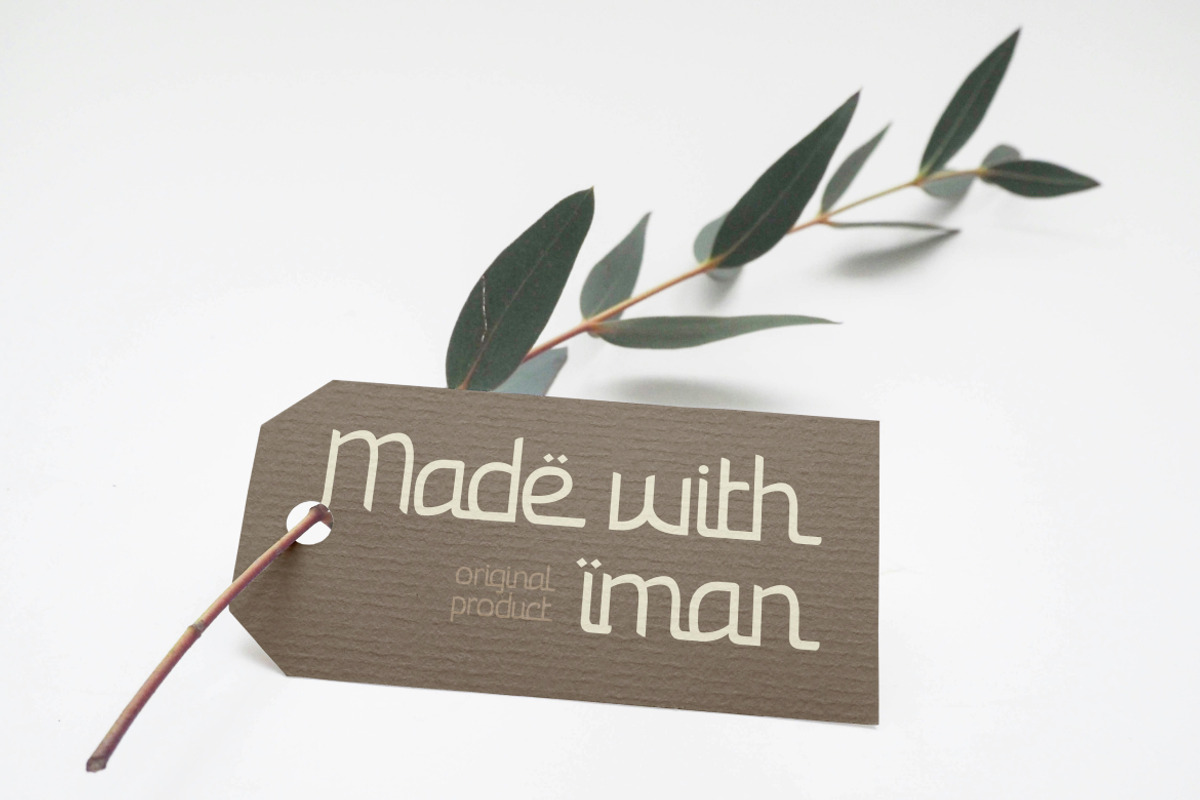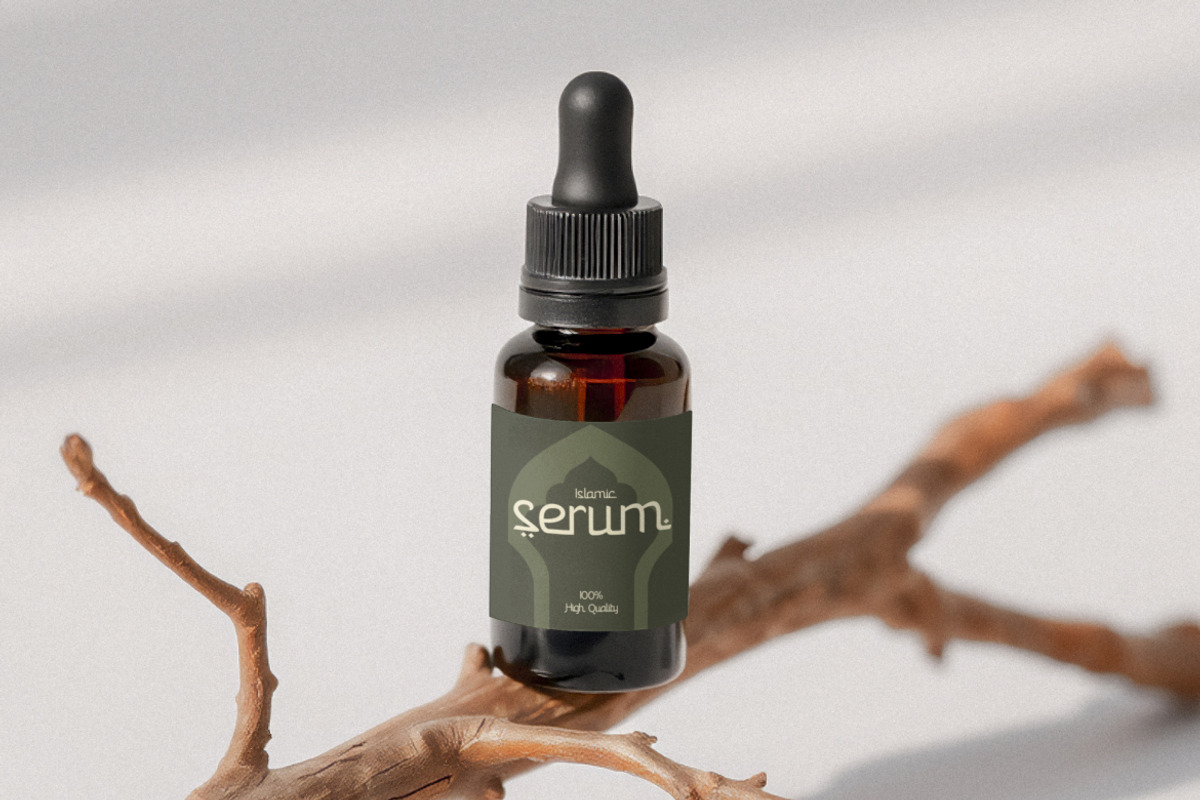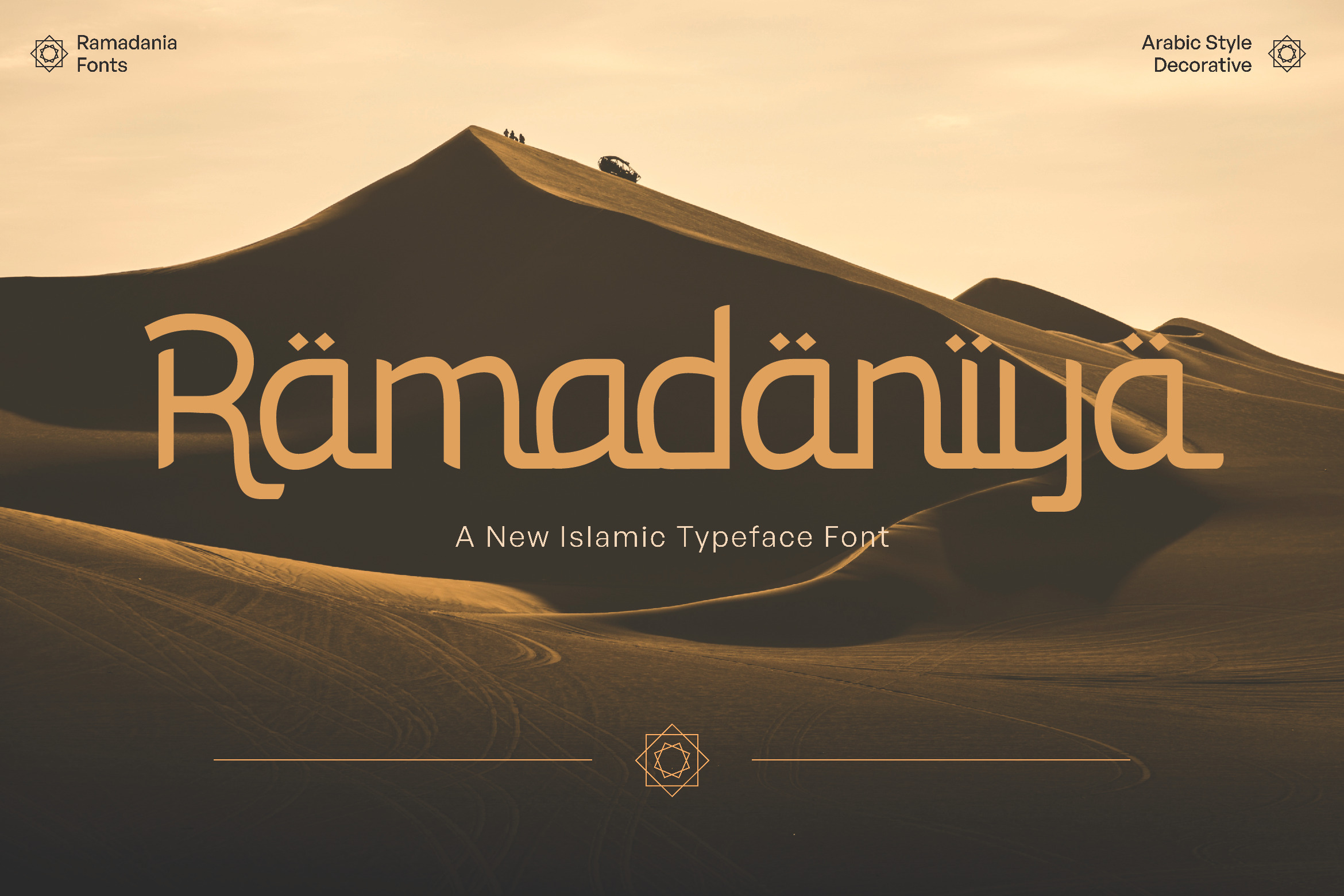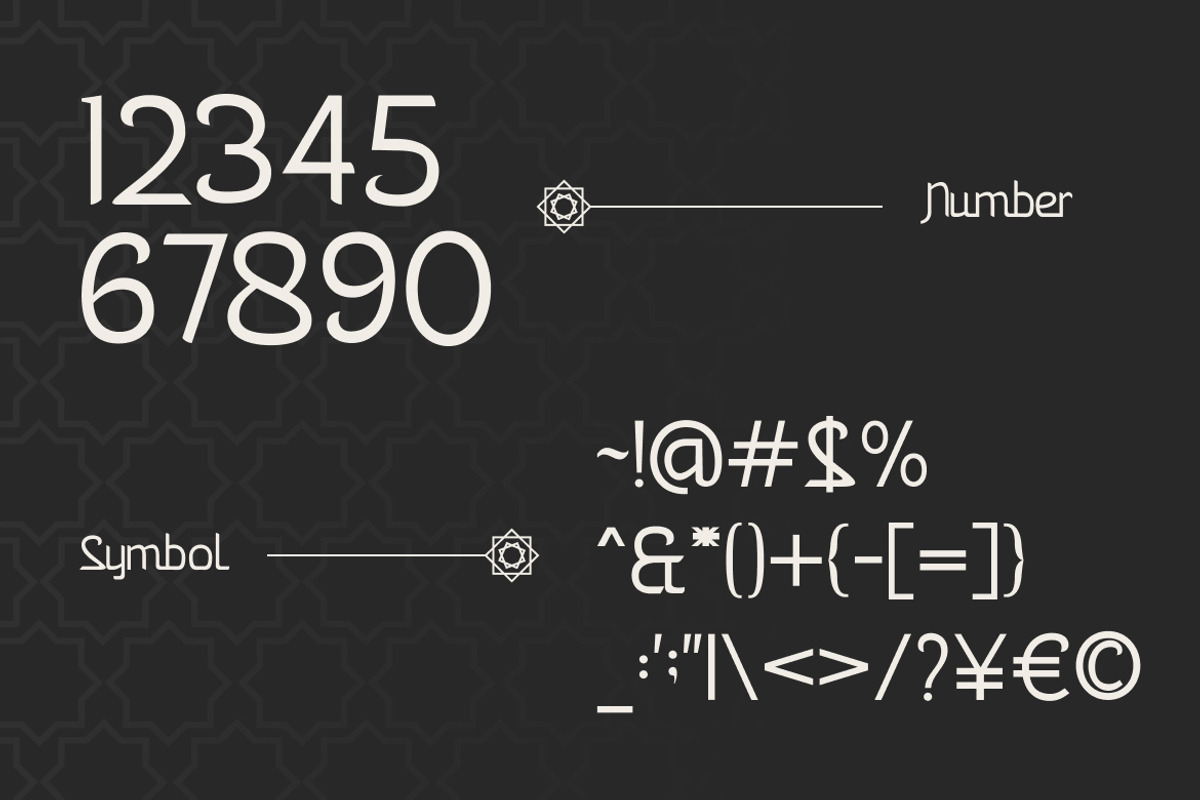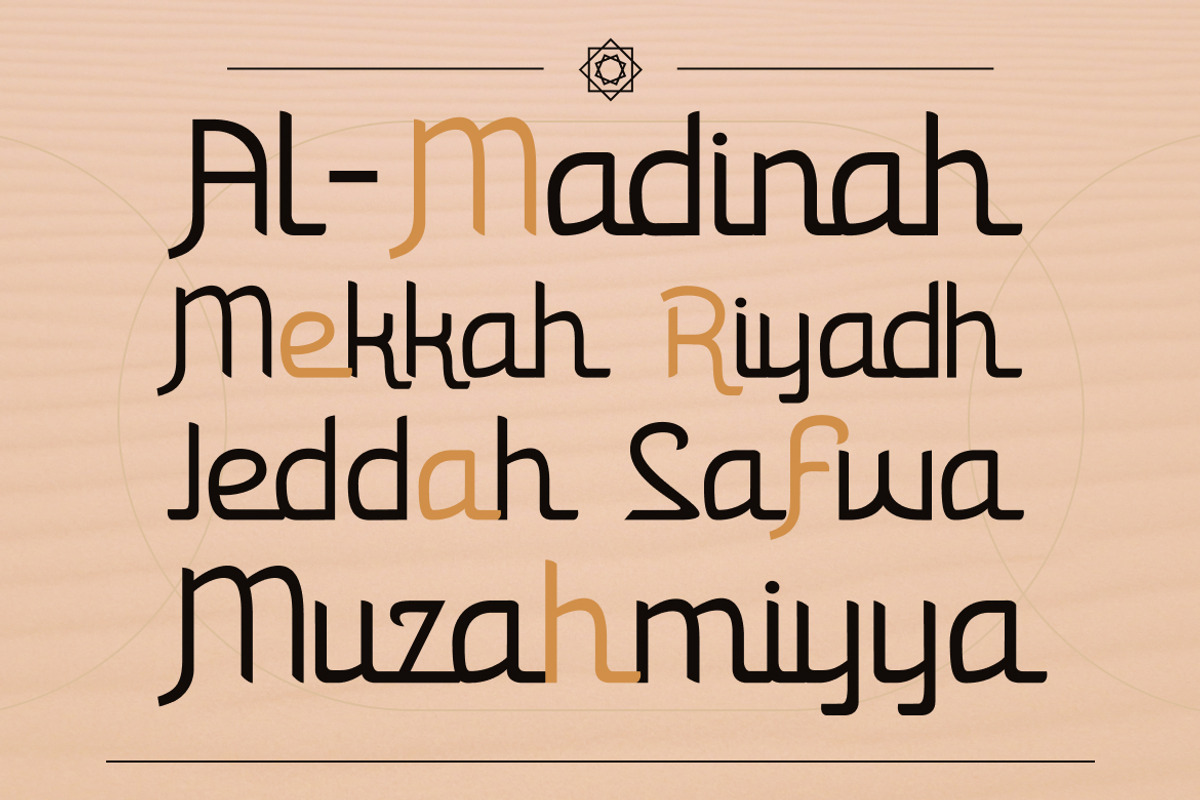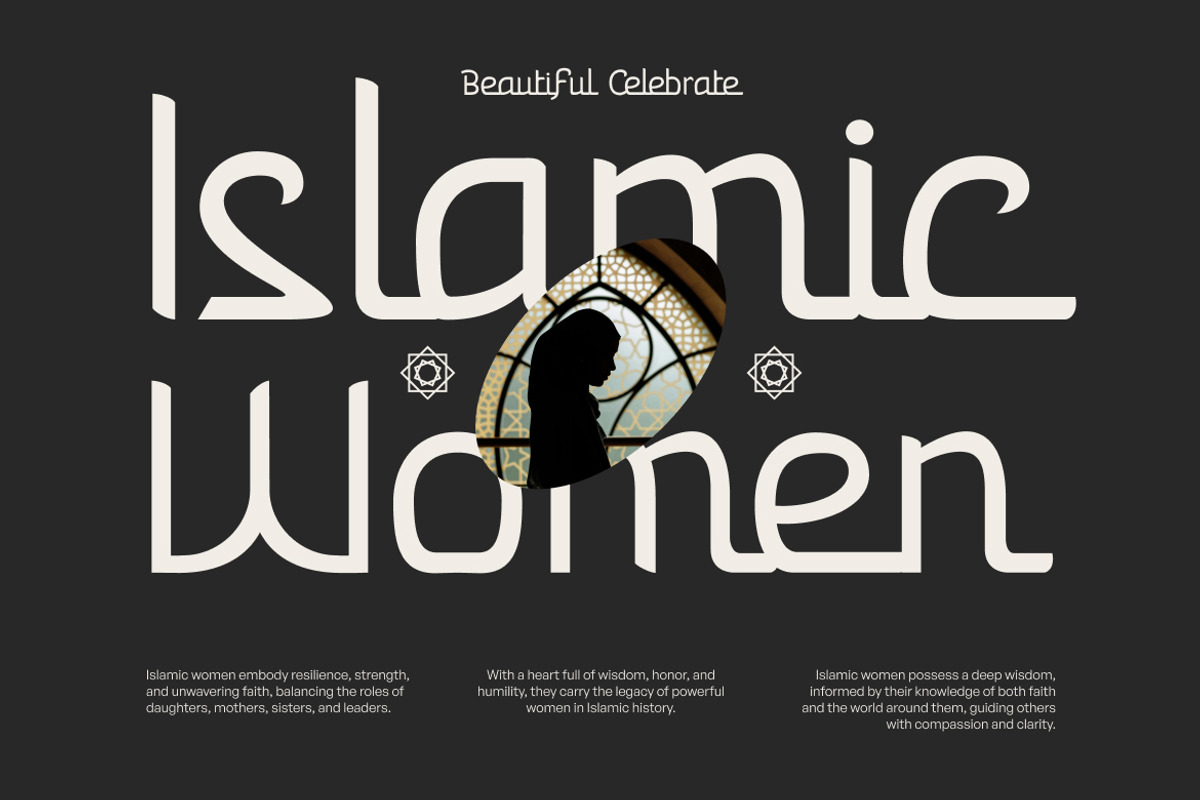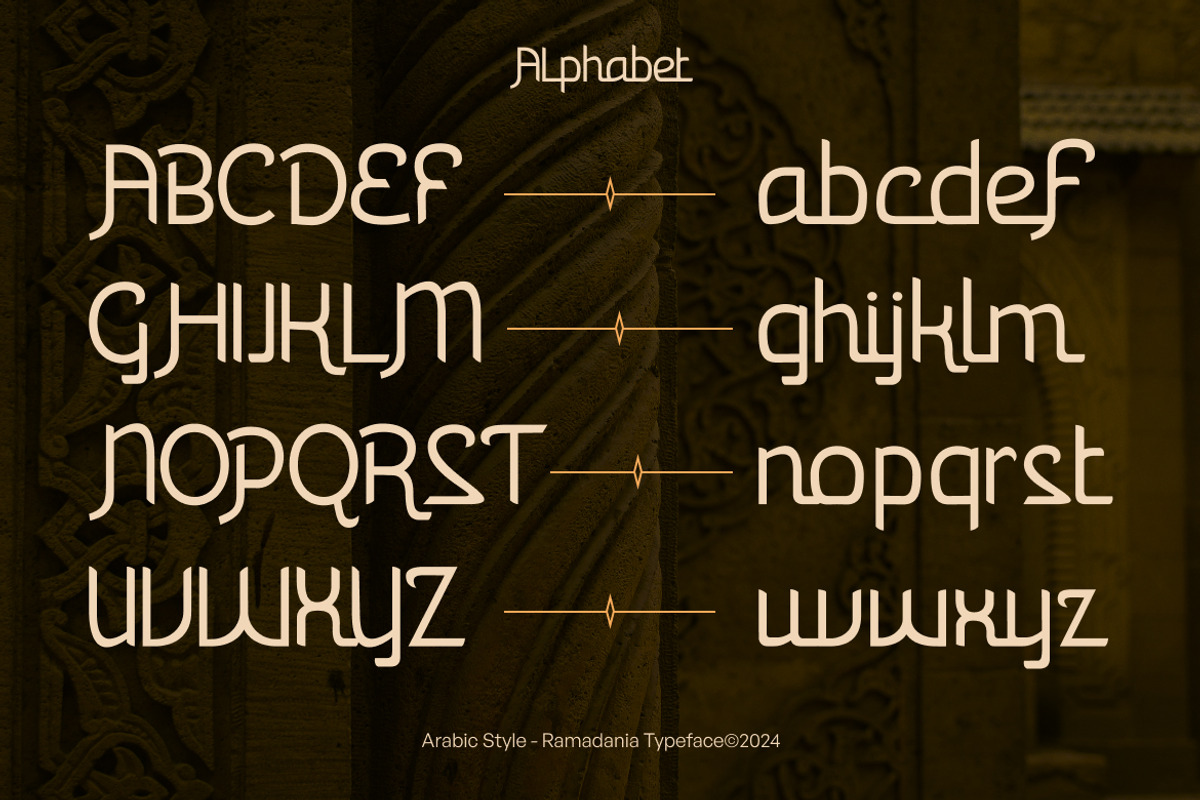
Ramadaniya – Islamic Typeface Font
Ramadaniya is a modern Islamic typeface inspired by Arabic calligraphy and Middle Eastern design traditions. With its decorative strokes, geometric balance, and cultural elegance, this font is perfect for capturing the spirit of Ramadhan, Eid celebrations, and Islamic-inspired branding.
Whether for greeting cards, event posters, product packaging, or digital campaigns, Ramadaniya brings a unique blend of tradition and modern design to your creative projects.
Highlights
Arabic-inspired decorative serif style
Modern geometric forms with cultural aesthetics
Perfect for Islamic and Middle Eastern themes
Elegant yet readable in both digital and print
Best Uses
Ramadhan & Eid greetings
Islamic branding & identity
Mosque posters & event flyers
Halal product packaging
Social media templates
Cultural editorial design
Ligatures – for creative letter combinations
Alternates – decorative options for flexibility
Multilingual Support – covering multiple international languages
Complete Character Set – uppercase, lowercase, numbers, punctuation
Celebrate the beauty of Islamic art and culture with Ramadaniya, a typeface crafted for tradition, elegance, and modern design harmony.